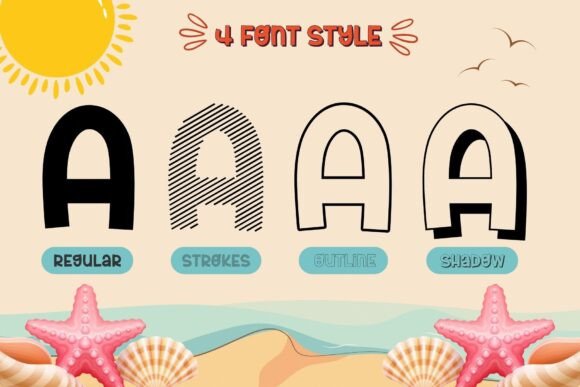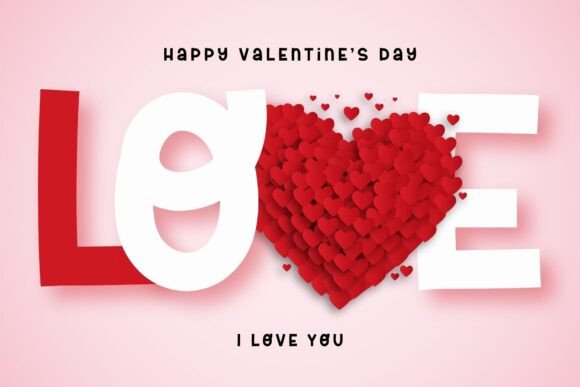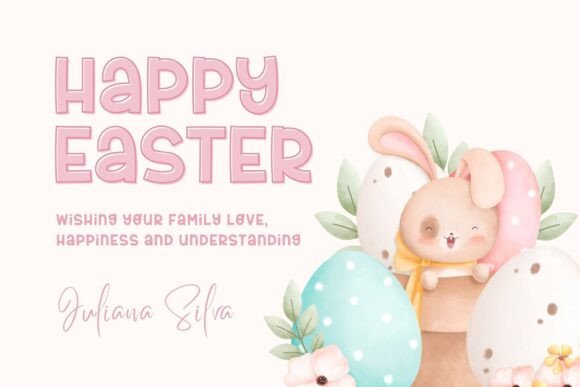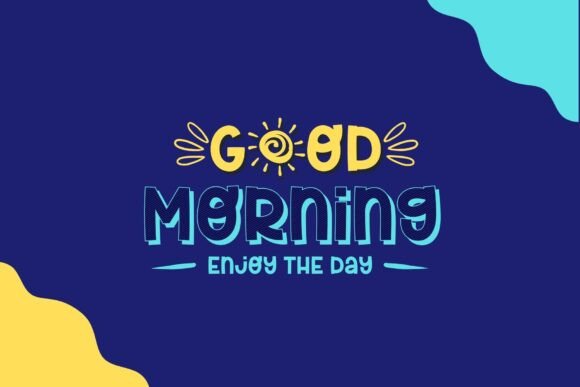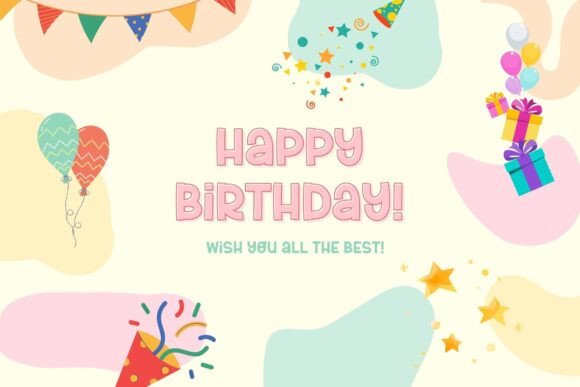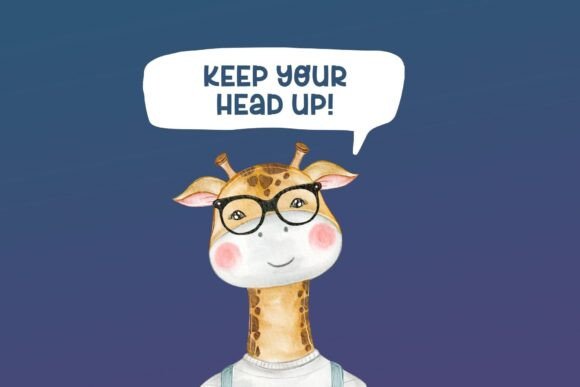
Introduction to Fox Sunrise Font
Fox Sunrise is a fun and lively display font inspired by the cheerful energy of beachside mornings.
Designed with a bold, hand-drawn aesthetic, this font brings a warm and inviting touch to any project Featuring four unique styles—Regular, Strokes, Outline, and Shadow—Fox Sunrise offers versatility for eye-catching headlines, creative branding, posters, kids’ designs, and summer-themed projects.